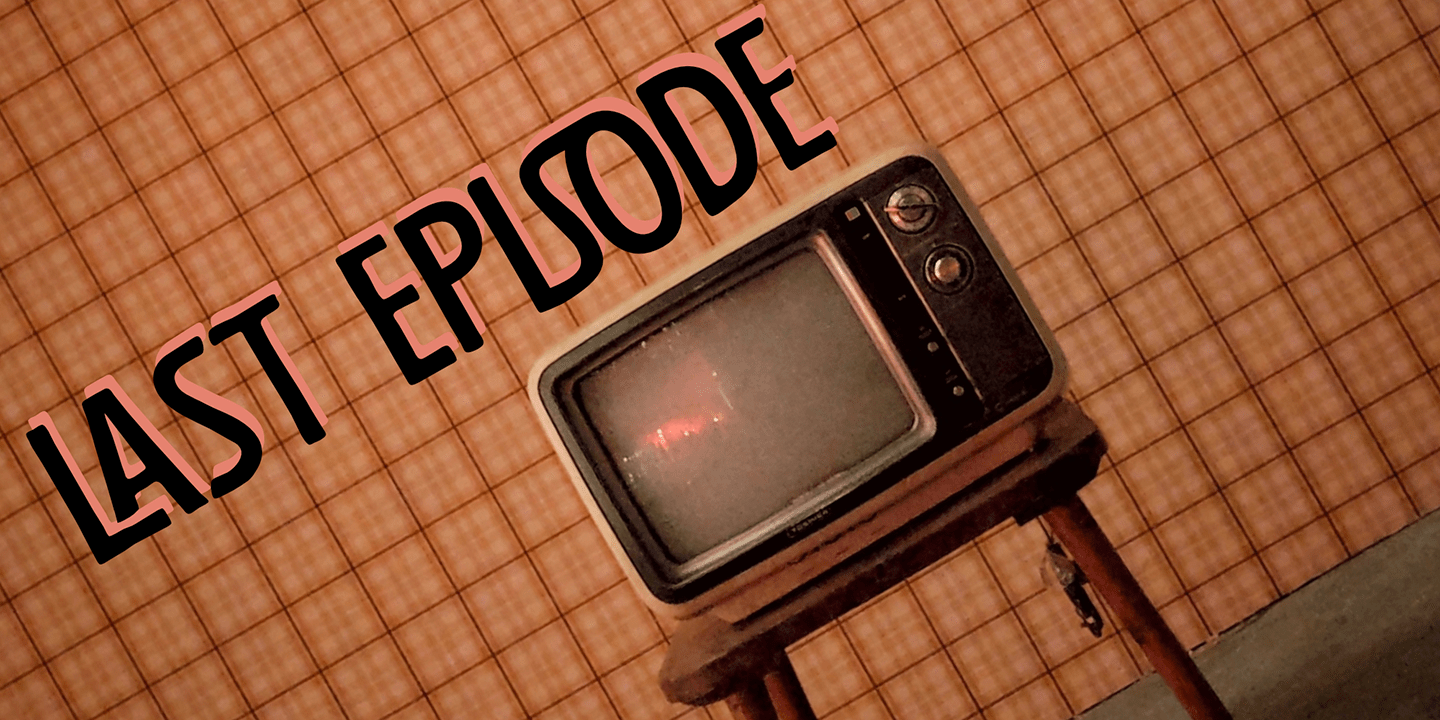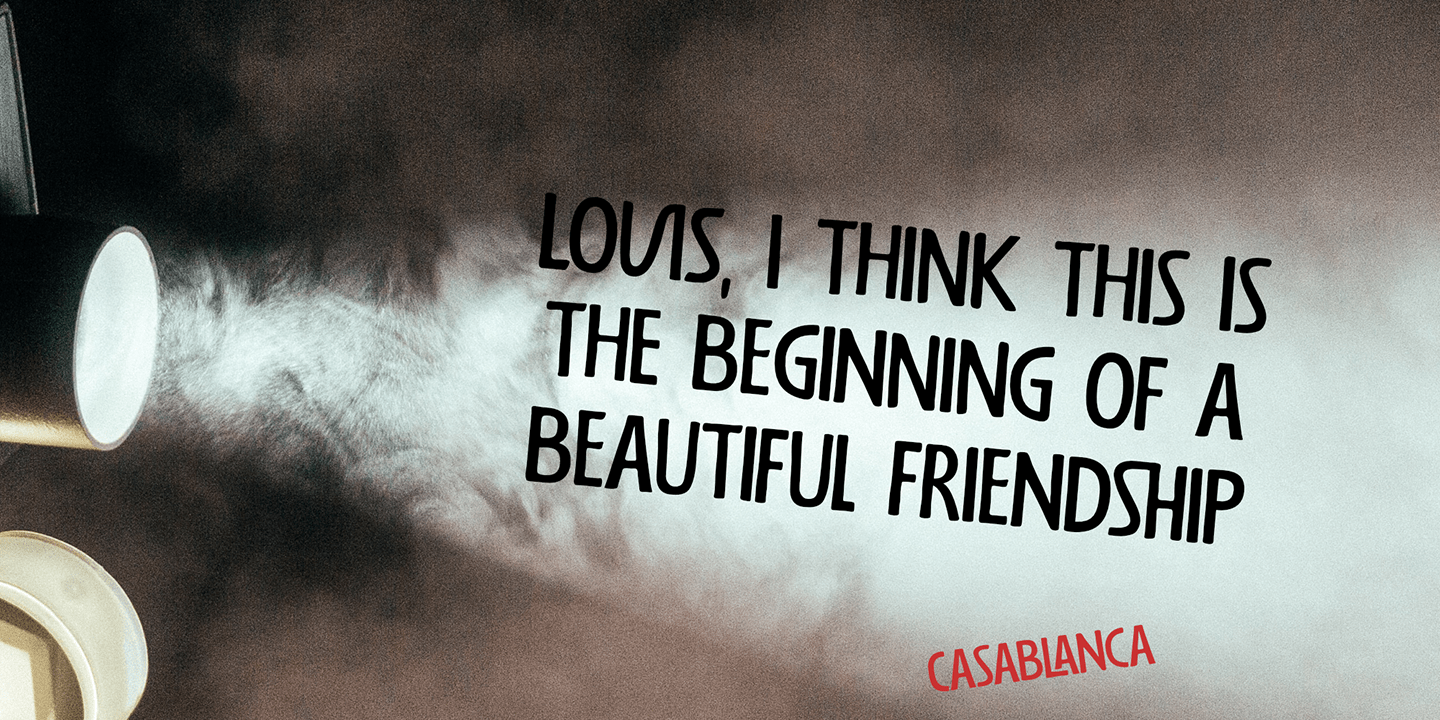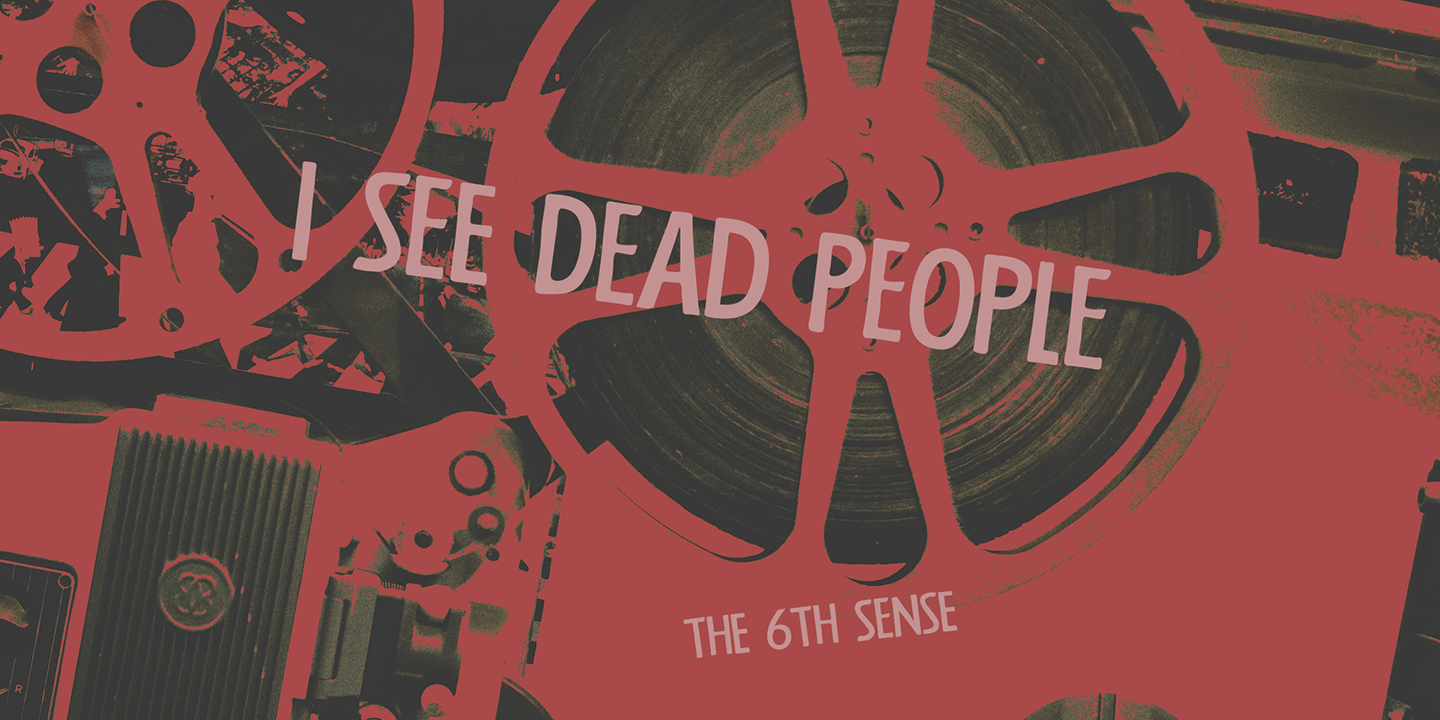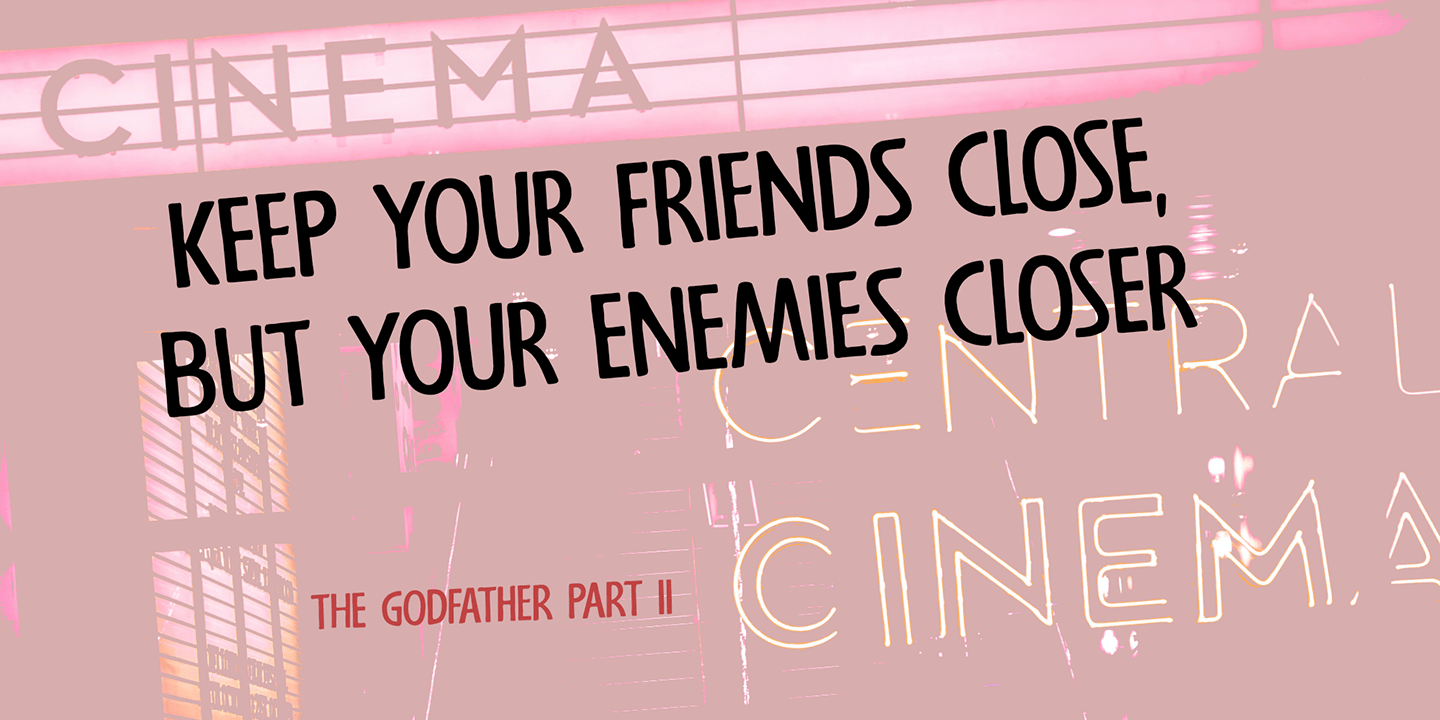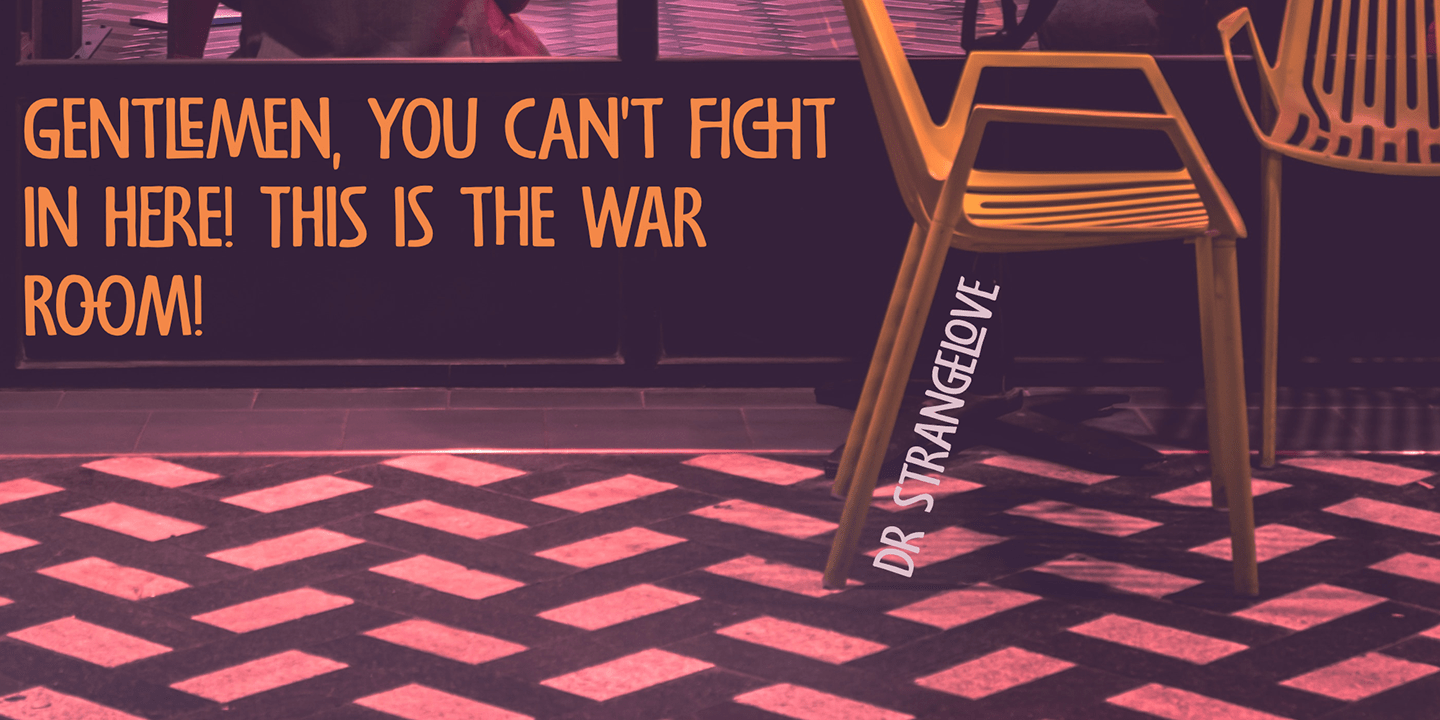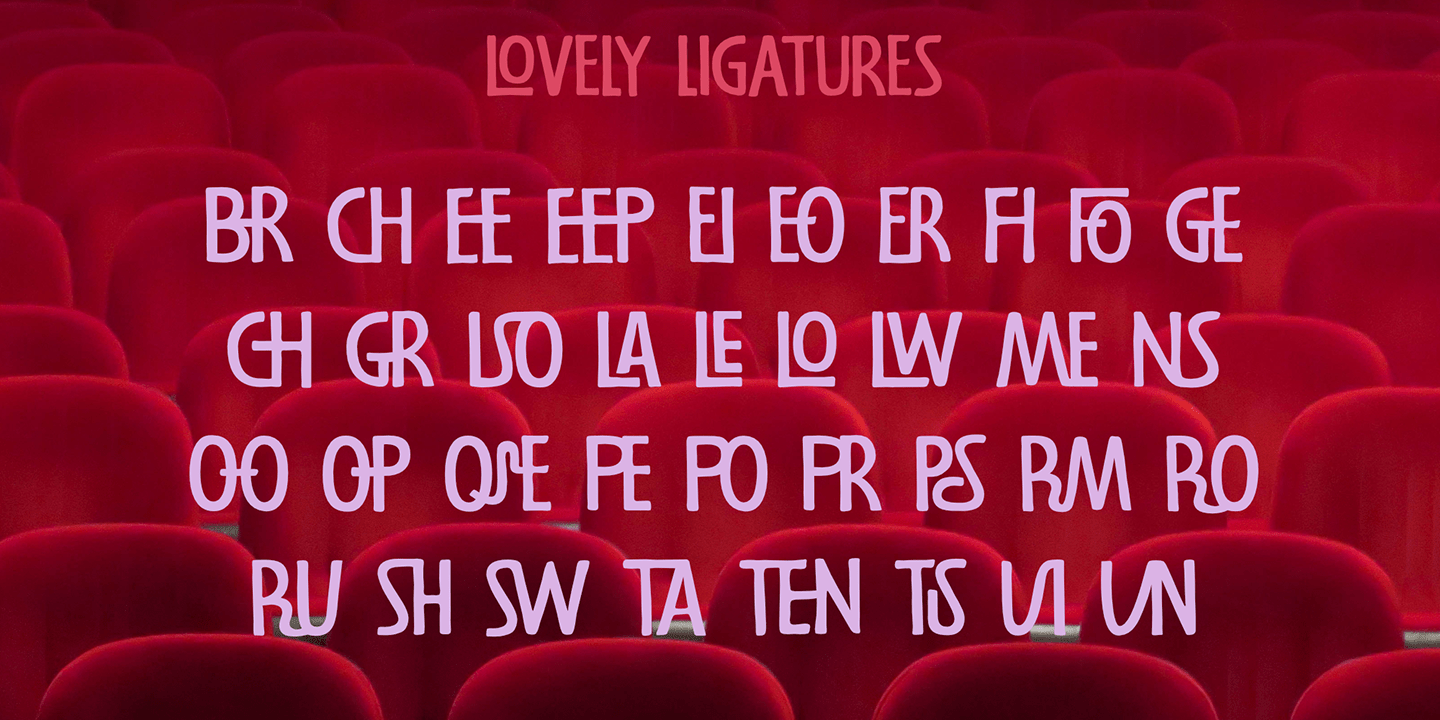
Last Episode
I was watching a nice series the other day, which I quite enjoyed, but then I realised that the episode I was watching was in fact the last one. That kinda upset me, as I was just getting into the story.
Last Episode is a handmade, all caps font - great for titling, book covers and posters. It comes with a set of alternates and some really interesting discretional ligatures.